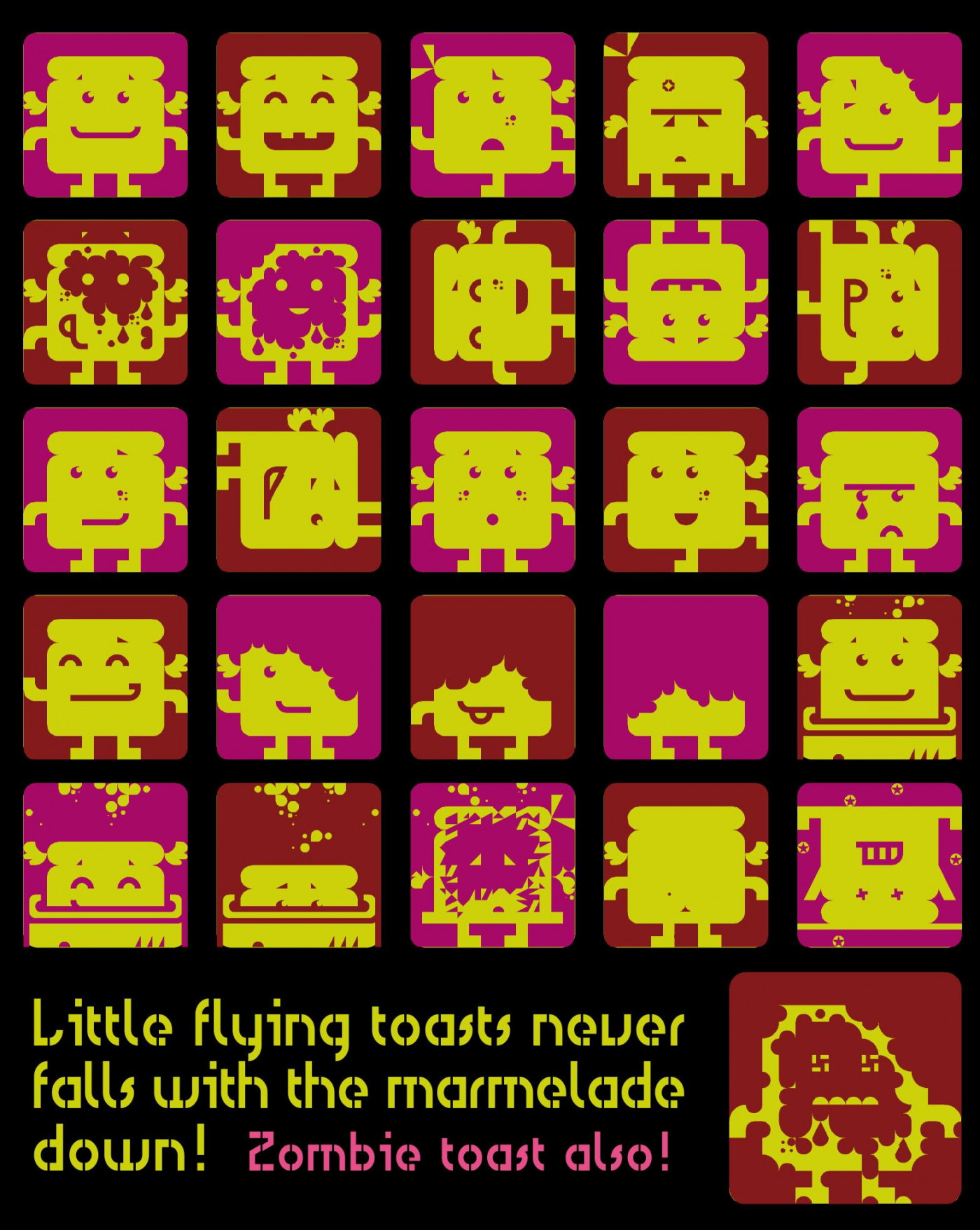
1 :-O / 1 :-O
:)
cute stuff!! 10/10
Great
such a lovely little fella to endure such a fate :( great job.
Cute, original, funny. 10/10
I can see the headlines: "Zombie Toasts Bite Back. Terror lurking on the supermarket shelves. Sliced bread infested by savage mutant toasts. Bleeding customer complained: Ferocious toast bit my lip." etc.
You could make some sinister variants with teeth, kind of Pac Man style. Just a thought.
Hahahaha! This is an excellent idea, we could create a whole series of "Zombie Toasts" for the media!
so tasty! I love this
By the way, i never told you how i liked your crazy toasts, especially the last one completely burnt, poor little thing! :0)
lol lol lol lol
Like a bunch of mini filmstrips! :)